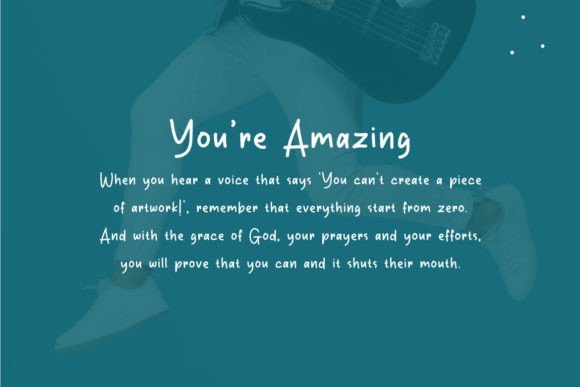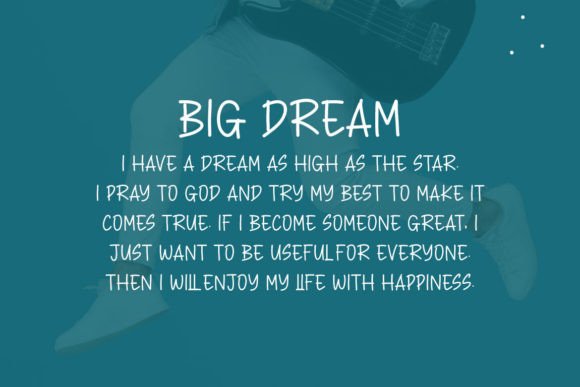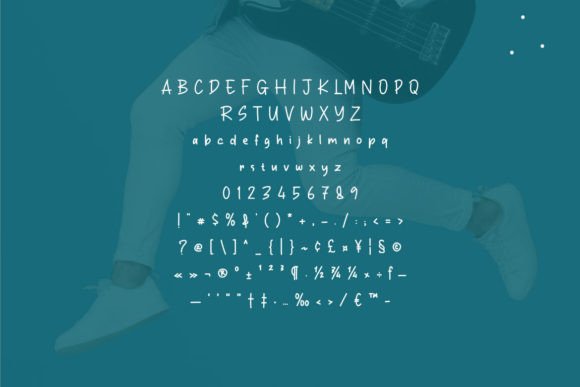
Introduction to Jump & Rolls Font
Do you remember that moment when you first saw a design that made you smile? Maybe it was a beautifully handwritten font on a greeting card or a playful logo on a children’s product. For many designers, that moment is what inspires us to create something truly special. And that’s exactly what we’re excited to introduce to you – the charming Jump & Rolls Font, a new addition to your design resource arsenal.
With its smooth curves and gentle strokes, Jump & Rolls Font is the perfect choice for adding a friendly, hand-crafted feel to any project. Whether you’re working on a creative project or need a high-quality font for your design, this free download is sure to bring your ideas to life. And with its transparent background, you can easily use it on any design without worrying about clutter.
- High-quality design: Jump & Rolls Font is a beautifully crafted, unique font that adds a creative touch to any project.
- Transparent background: The transparent background of Jump & Rolls Font allows for easy layering and blending with other design elements.
- High-resolution design: With a high resolution of 300 DPI, Jump & Rolls Font is suitable for use in high-quality print materials, such as business cards, brochures, and posters.
- Unique character set: The font features a unique character set, including uppercase and lowercase letters, numbers, and special characters, making it perfect for creative projects that require a distinctive look.
- Large font size: Jump & Rolls Font is available in a large font size, making it suitable for use in headings, titles, and other large text elements.
Honest Review: Jump & Rolls Font
I recently had the chance to work with the Jump & Rolls Font, and I must say it’s been a great addition to my design resources. This high-quality font is perfect for any creative project that requires a fun and playful touch.
- ✨ Great for titles and headings, the font’s bold and cursive style really catches the eye.
- ✨ The transparent background option makes it easy to use as a standalone graphic or overlay.
- ⚠️ The font may not be the best choice for formal or professional projects, as its playful nature may not be suitable for all audiences.
- ⚠️ Some users may find the font’s style to be a bit too whimsical or over-the-top, depending on their design preferences.
Overall, I’m really impressed with the Jump & Rolls Font. Its high quality and versatility make it a great addition to any design resource library. With a little creativity, this font can really elevate your designs and make them stand out.